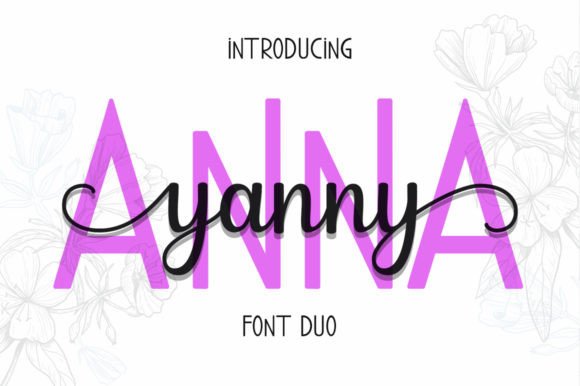
The Anna Yanny Font: A Sweet and Lovely Duo for Your Creative Projects
Anna Yanny is a beautiful duo font, consisting of a sans serif and script font, that exudes warmth, romance, and joy. This font is perfect for designers, crafters, and creative hobbyists looking to add a personal touch to their projects. In this article, I’ll share my honest review of the Anna Yanny font, provide a practical guide on how to use it, and explore similar fonts and alternatives.
Honest Review: What I Love and Some Quirks
- 💖 The combination of a sans serif and script font makes Anna Yanny incredibly versatile.
- 🎨 The warm and romantic feel of the font makes it perfect for projects that require a personal touch.
- 👍 The font is well-suited for a variety of design projects, from wedding invitations to branding and packaging.
Some Quirks and Limitations 🤔
- ⚠️ The script font can be a bit tricky to read at smaller sizes, so it’s best to use it for headlines or titles.
- 🤔 Some users may find the font a bit too ornate for certain projects, but this can be easily resolved by using the sans serif font instead.
The Story Behind Anna Yanny
The Anna Yanny font was designed by a team of talented typographers who wanted to create a font that would evoke feelings of warmth, romance, and joy. The font is named after two lovely individuals who inspired the designers to create a font that would be perfect for wedding invitations, birthday cards, and other celebratory projects.
| Font Name | Anna Yanny Font |
| Author | cavalera creative |
Q: What is the Anna Yanny font?
A: The Anna Yanny font is a beautiful duo font, consisting of a sans serif and script font, that’s perfect for projects that require a warm, romantic, and playful feel.